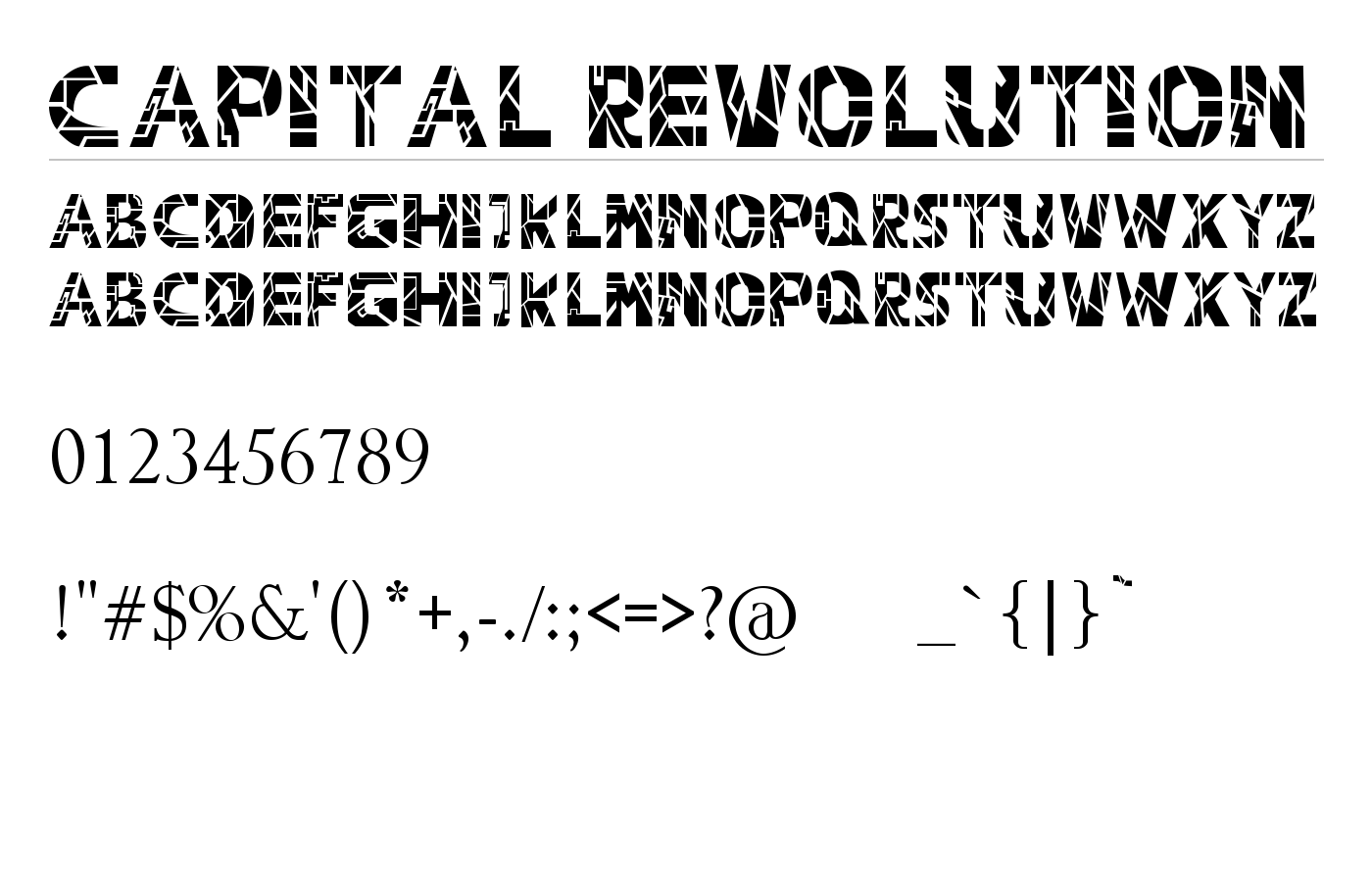
Capital Revolution is a bold, geometric sans serif display font with a striking shattered or fragmented pattern inside its uppercase letterforms, creating a dynamic, modern effect. Its strong, blocky shapes and uniform stroke weight give it a powerful and edgy personality, making it ideal for eye-catching headlines, logos, or posters that need a contemporary, rebellious vibe. This font works best where a statement and visual impact are desired, especially in branding or design projects aiming for a futuristic or avant-garde look.
Capital Revolution Font